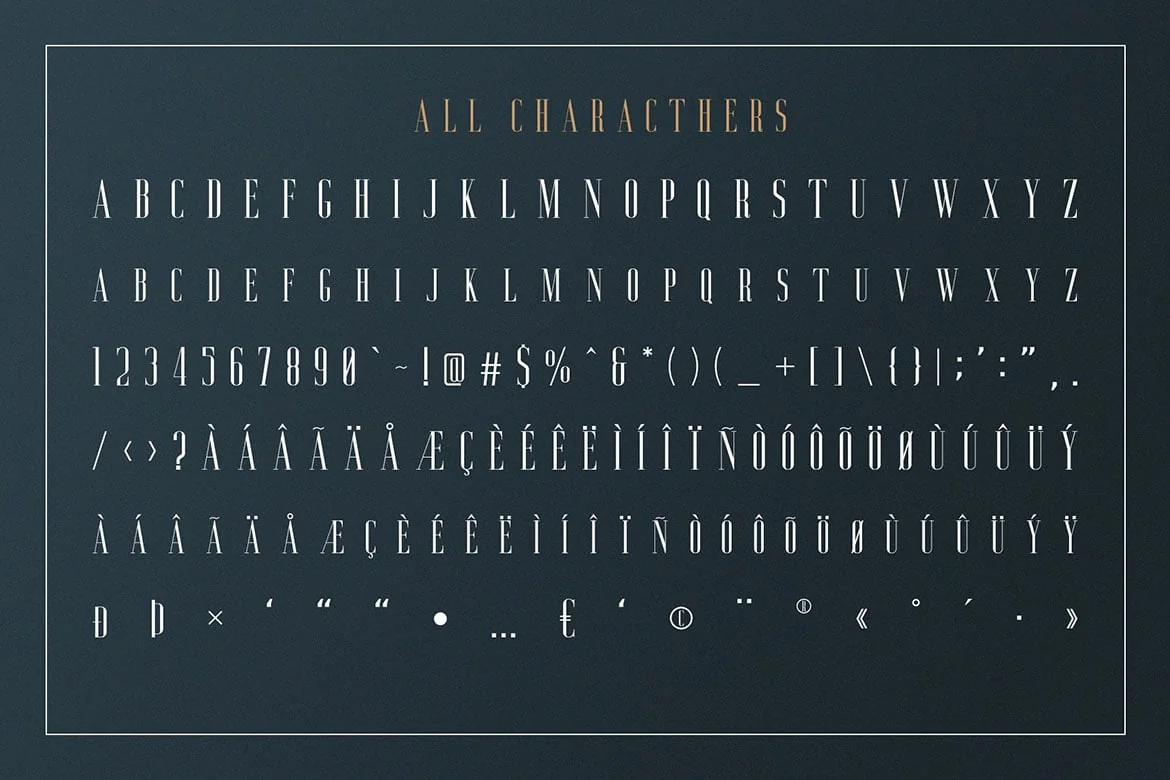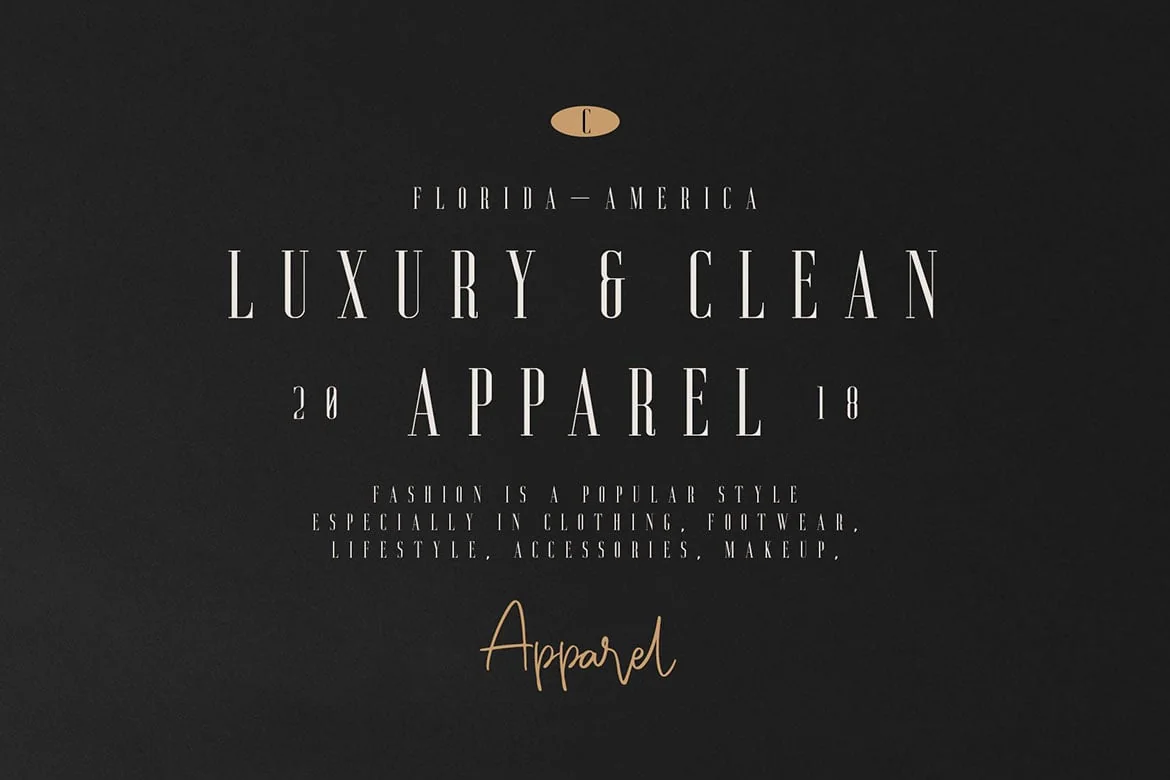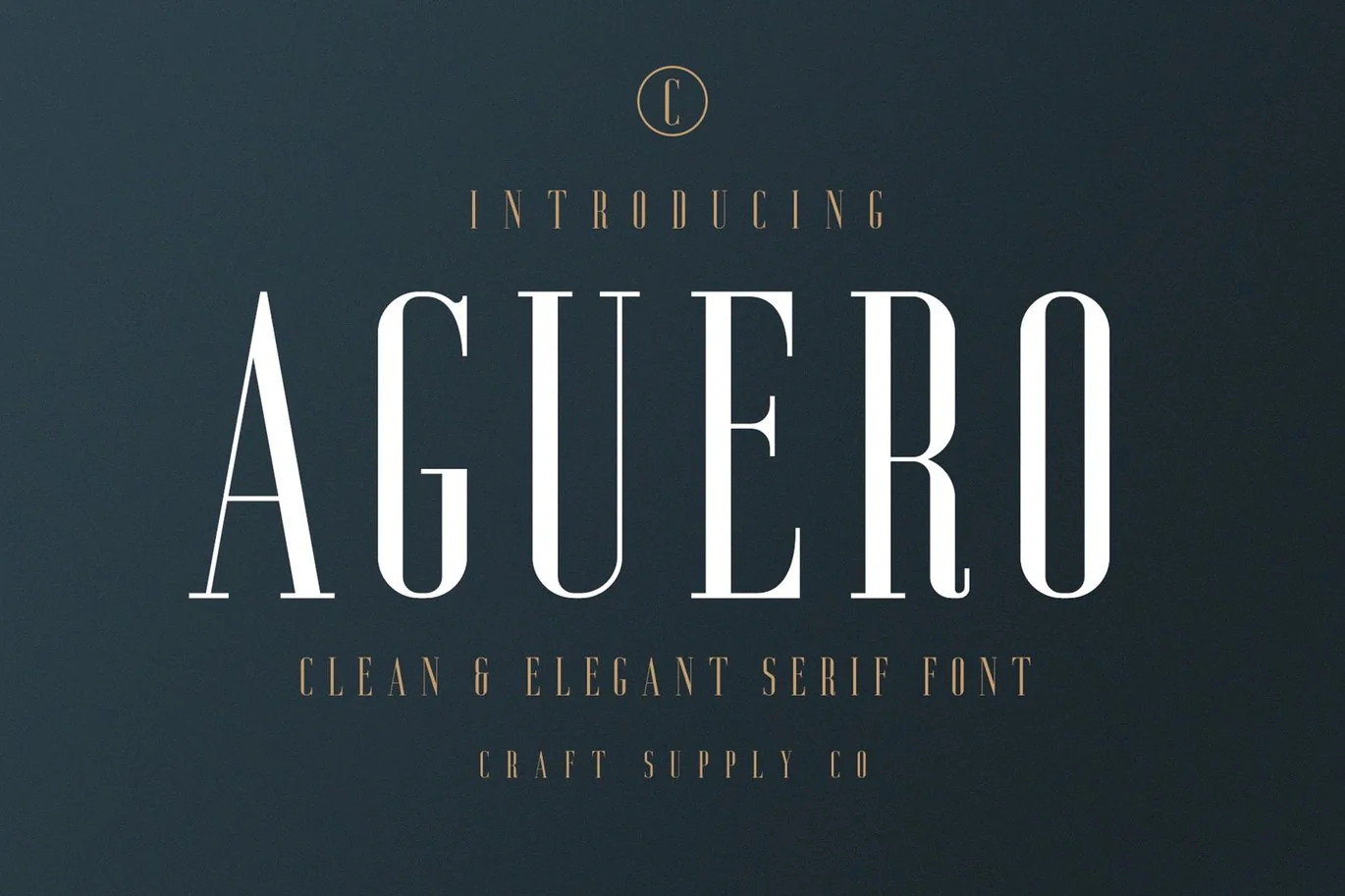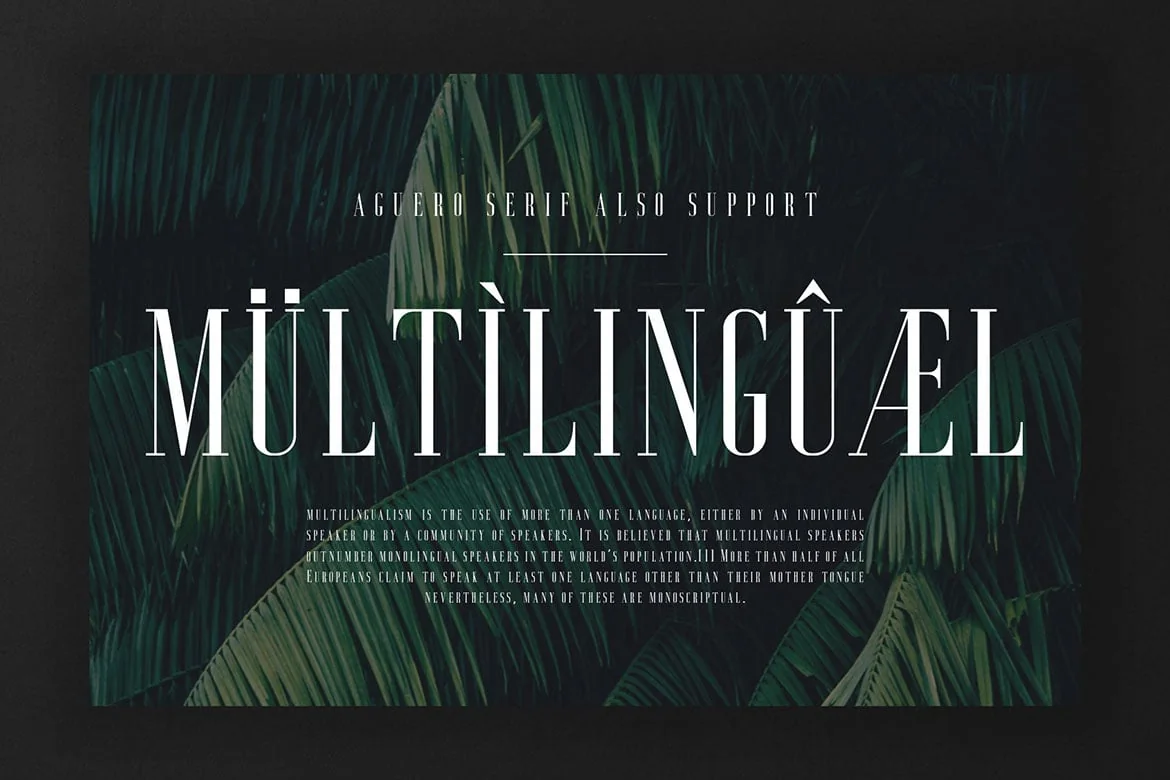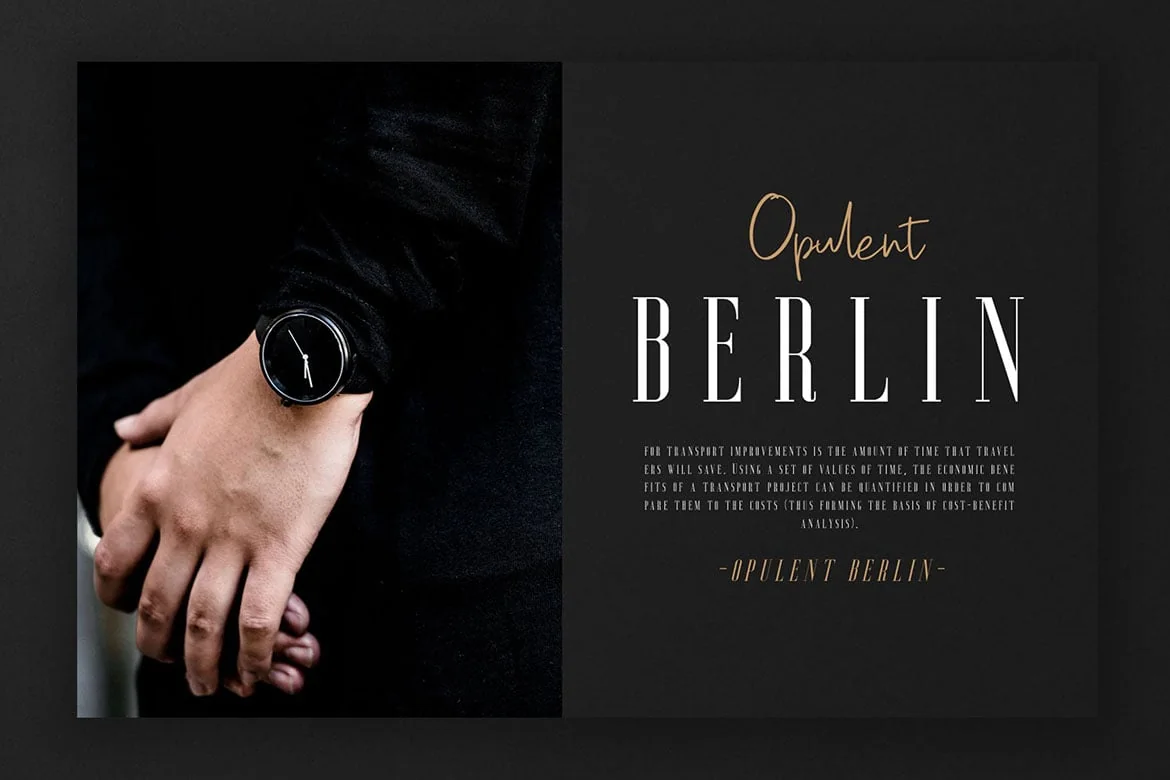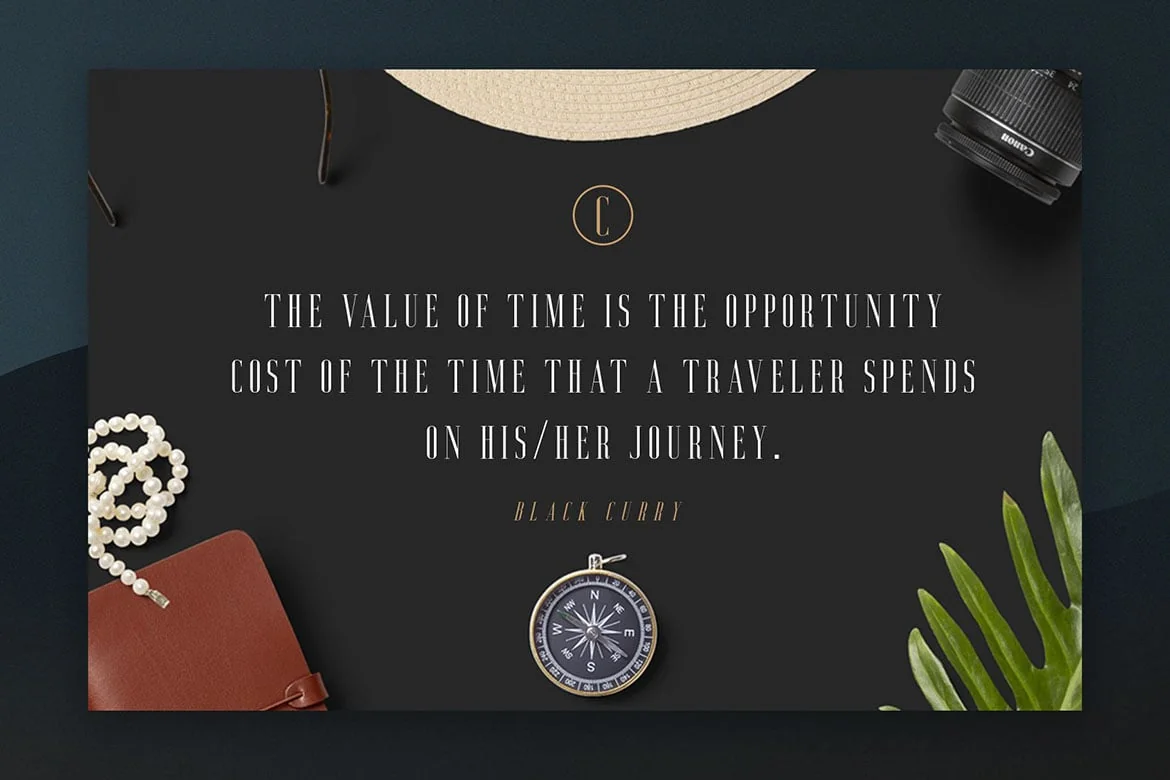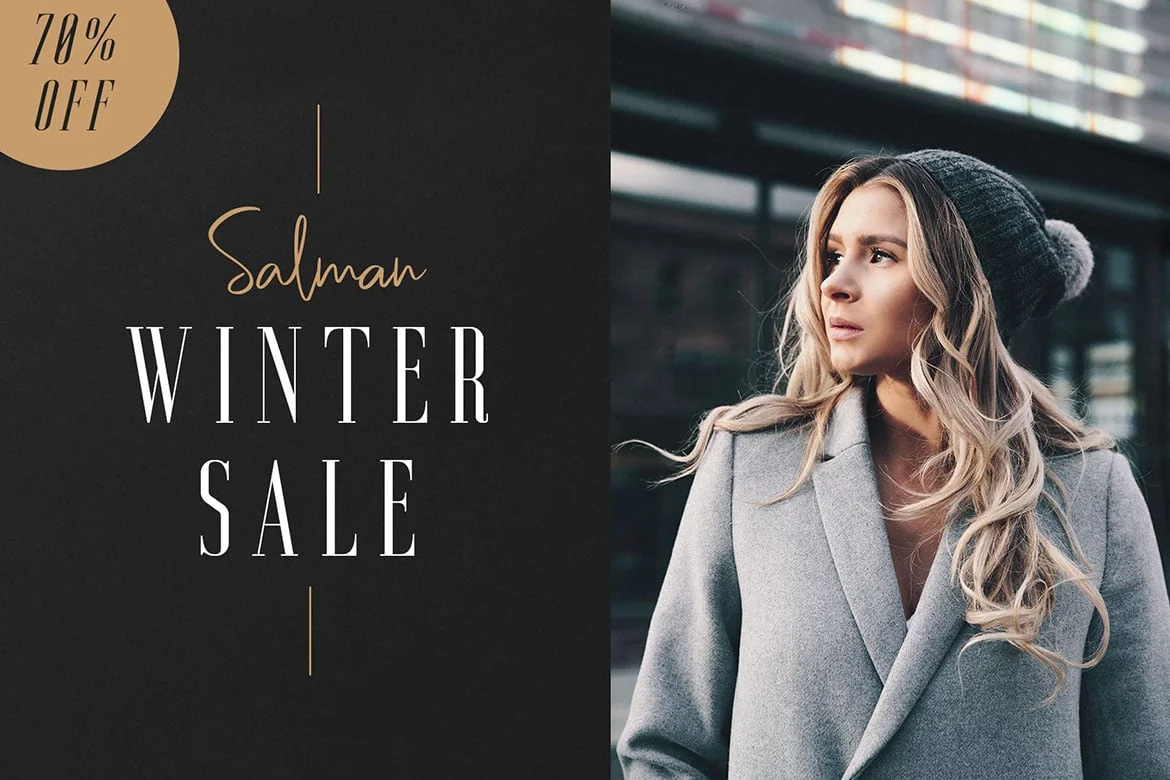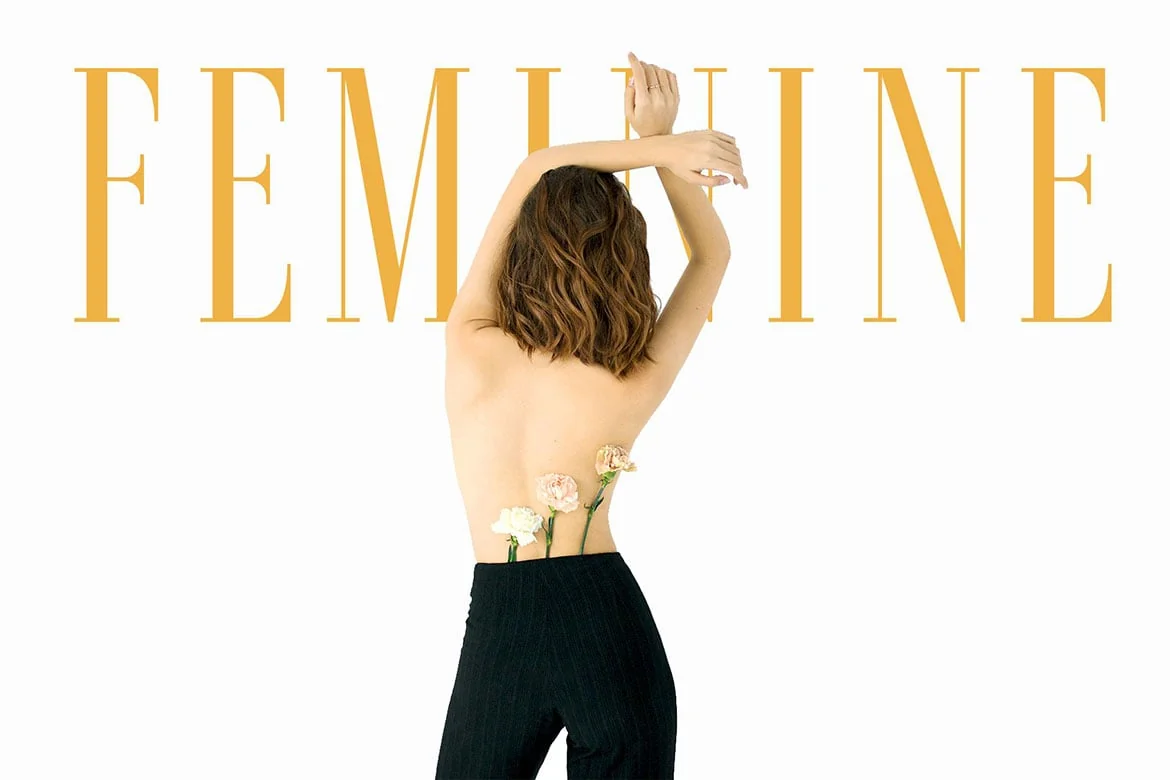
Aguero Serif – Clean & Elegant Font
Introducing New Font : Aguero Serif – Clean & Elegant Serif Font
Aguero Serif – Clean & Elegant Serif Font is suitable for Logo, greeting cards, quotes, posters, branding, name card, stationary, design title, blog header, art quote, typography
Aguero Serif – Clean & Elegant Serif Font also suitable for art, modern envelope lettering or book design, happening style like handdrawn design or watercolor design theme, craft design, any DIY project, book title, wedding font, pop vintage design, or any purpose to make our art/design project look pretty and trendy.
- All Caps Font
- Standard Ligatures
- Numerals & Punctuations (OpenType Standard)
- Accents (Multilingual characters) (AÀÁÂÃÄÅCÇDÐEÈÉÊËIÌÍÎÏNÑOØÒÓÔÕÖUÙÜÚÛWYÝŸỲŸÆŒßÞ)